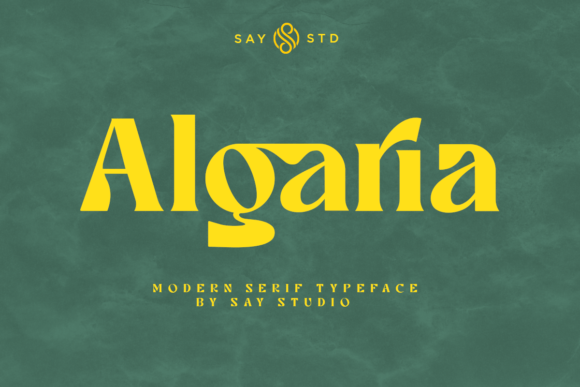
The Perfect Blend of Strength and Elegance: Introducing Algaria Font
As a designer, there’s nothing quite like the thrill of finding the perfect font to elevate your project. It’s that moment when everything clicks into place, and your vision comes to life. For me, it was a late-night brainstorming session, surrounded by scraps of paper and a sea of fonts on my computer screen. And then, I stumbled upon it – the Algaria Font.
This modern bold serif display font is a game-changer. Its striking serifs and strong lines make it perfect for impactful headlines, branding, and editorial designs. Whether you’re looking to convey authority or sophistication, the Algaria Font effortlessly delivers. Its versatility and timeless charm make it a valuable addition to any designer’s toolkit.
- Font Family: Algaria
- Unique Characteristics: Features a unique blend of modern and traditional typography, making it suitable for a wide range of applications, from editorial to advertising
- Font Style: Available in 3 font styles, including Regular, Italic, and Bold, allowing for versatility and emphasis
Algaria Font Review
Initially, I was drawn to Algaria Font’s elegant and modern aesthetic. The font’s unique blend of geometric and organic elements ✨ creates a visually striking effect that would work well in a variety of design contexts.
- The font’s high x-height and generous letter spacing ✨ make it highly legible, even at small sizes.
- Algaria Font’s unique character set ✨ includes a range of ligatures and contextual alternates that can add an extra layer of sophistication to text.
- The font’s strong vertical axis ✨ makes it well-suited for use in headings and titles.
However, I did encounter some limitations with Algaria Font. The font’s irregular shapes and bold strokes can sometimes make it difficult to read in certain contexts ⚠️, particularly at very small sizes or in situations where the text is surrounded by a lot of other visual elements.
Additionally, the font’s character set is not as extensive as some other fonts I’ve worked with ⚠️, which may be a concern for designers who need to support a wide range of languages.
Overall, I think Algaria Font is a solid choice for designers who are looking for a unique and eye-catching font. While it may not be suitable for all design contexts, its strengths in terms of legibility and visual interest make it a valuable addition to any font collection.
Tips for Getting the Most Out of Algaria Font
Use Algaria Font for headings and titles to create a clear visual hierarchy.
Pair Algaria Font with a sans-serif font for body text to create a balanced typography.
Experiment with different font sizes and styles to create a unique visual identity.
Algaria Font is suitable for creative and modern designs, such as:
Branding and logos
Marketing materials and brochures
Websites and web applications
Alternative Fonts to Algaria
Montserrat is a sans-serif font designed by Julieta Ulanovsky. It is ideal for use in digital products, such as apps, websites, and mobile devices. Montserrat is a modern and clean font that is highly legible even at small font sizes.
Compared to Algaria, Montserrat is more modern and has a more geometric feel. It is also more versatile and can be used in a wide range of applications, from body text to headings.
Merriweather is a classic serif font designed by Eben Sorkin. It is suitable for use in print materials, such as books, magazines, and newspapers. Merriweather is a traditional and elegant font that is highly readable in print.
Compared to Algaria, Merriweather is more traditional and has a more classic feel. It is also more suitable for use in print materials, whereas Algaria is more versatile and can be used in both digital and print applications.